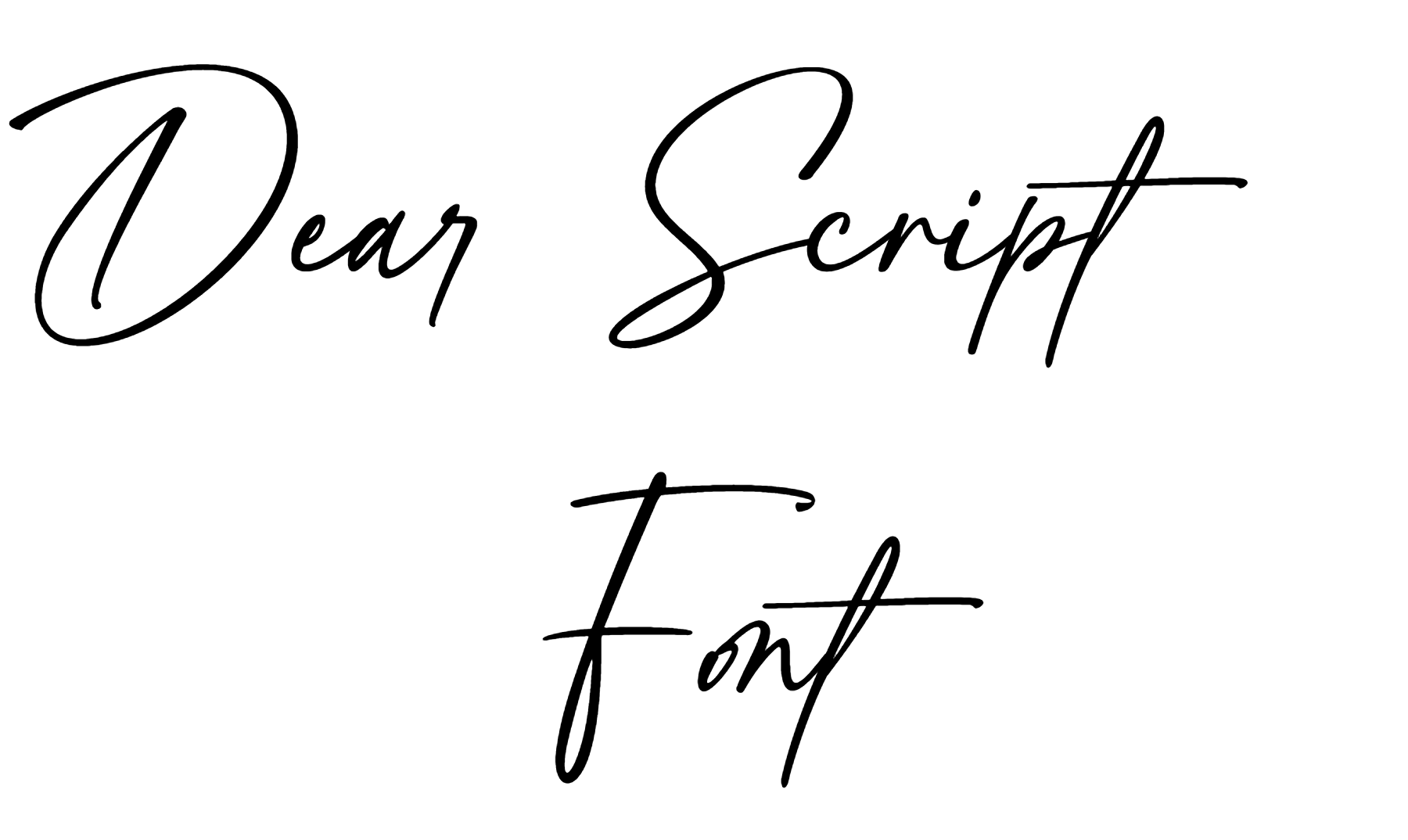
Dear Script
Dear Script is a handwritten font made by Riyadh Rahman. The letters have the small wobbles and personality of real handwriting, so your text feels warm instead of printed. It's a free download, and you can try it with your own text in the preview above first.
- OpenType features: Ligatures and swashes
What You Can Type With Dear Script
With complete upper and lowercase letters and all ten digits, Dear Script is ready for real wording, not just a single headline. Everyday marks like &, !, ? and @ are there too. Thanks to its accented letters, it also works for Spanish, French, German, Portuguese and Italian, not just English.
How to Use the Alternate Letters in Dear Script
Where Dear Script Works Best
Dear Script is a natural fit for greeting cards, journal pages and friendly social posts. Its lowercase letters are small compared to the capitals, so set it a size or two bigger than usual. Set it a bit larger than you would a normal text font. Handwriting styles lose their charm once they get too small to read comfortably.